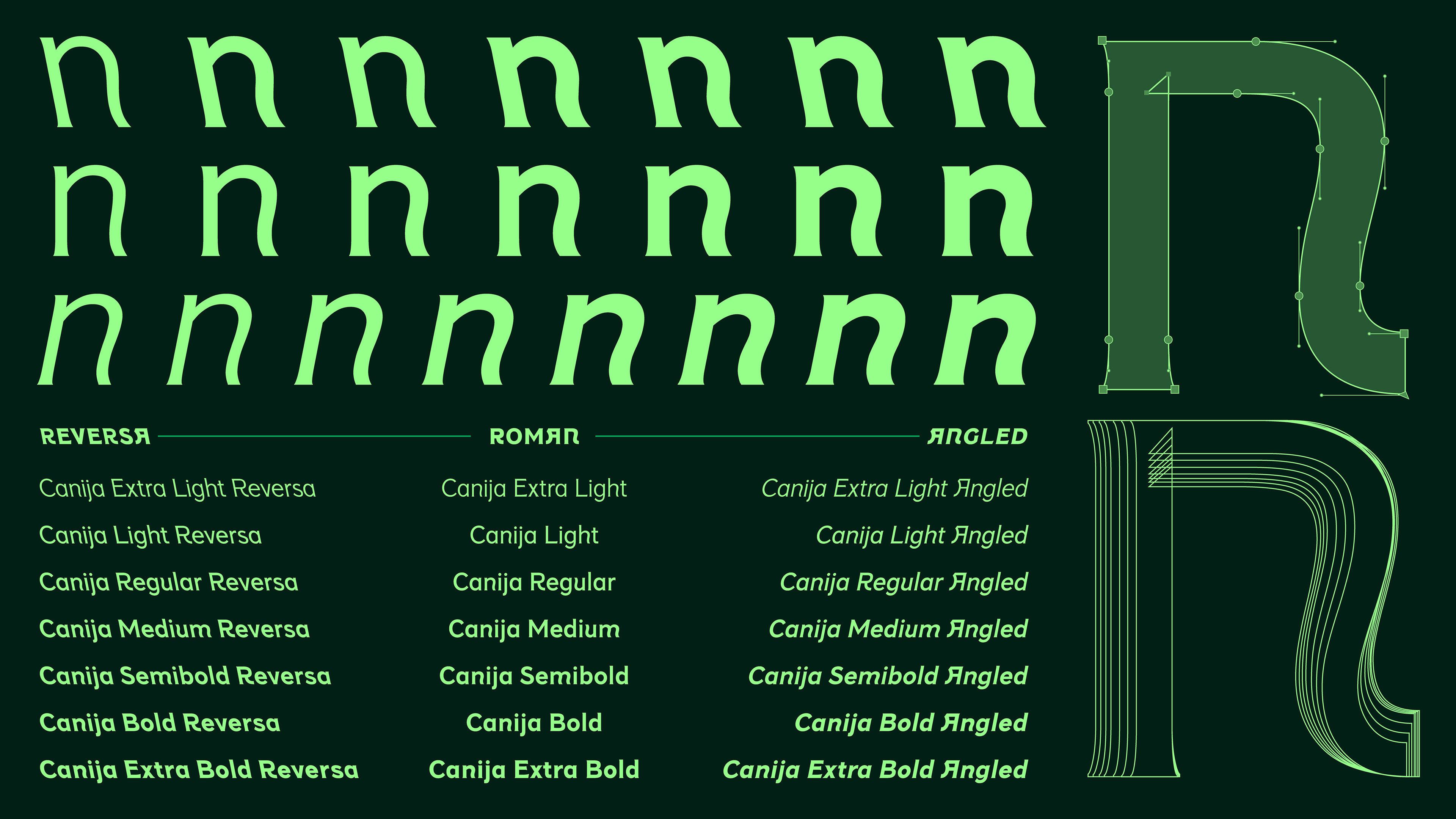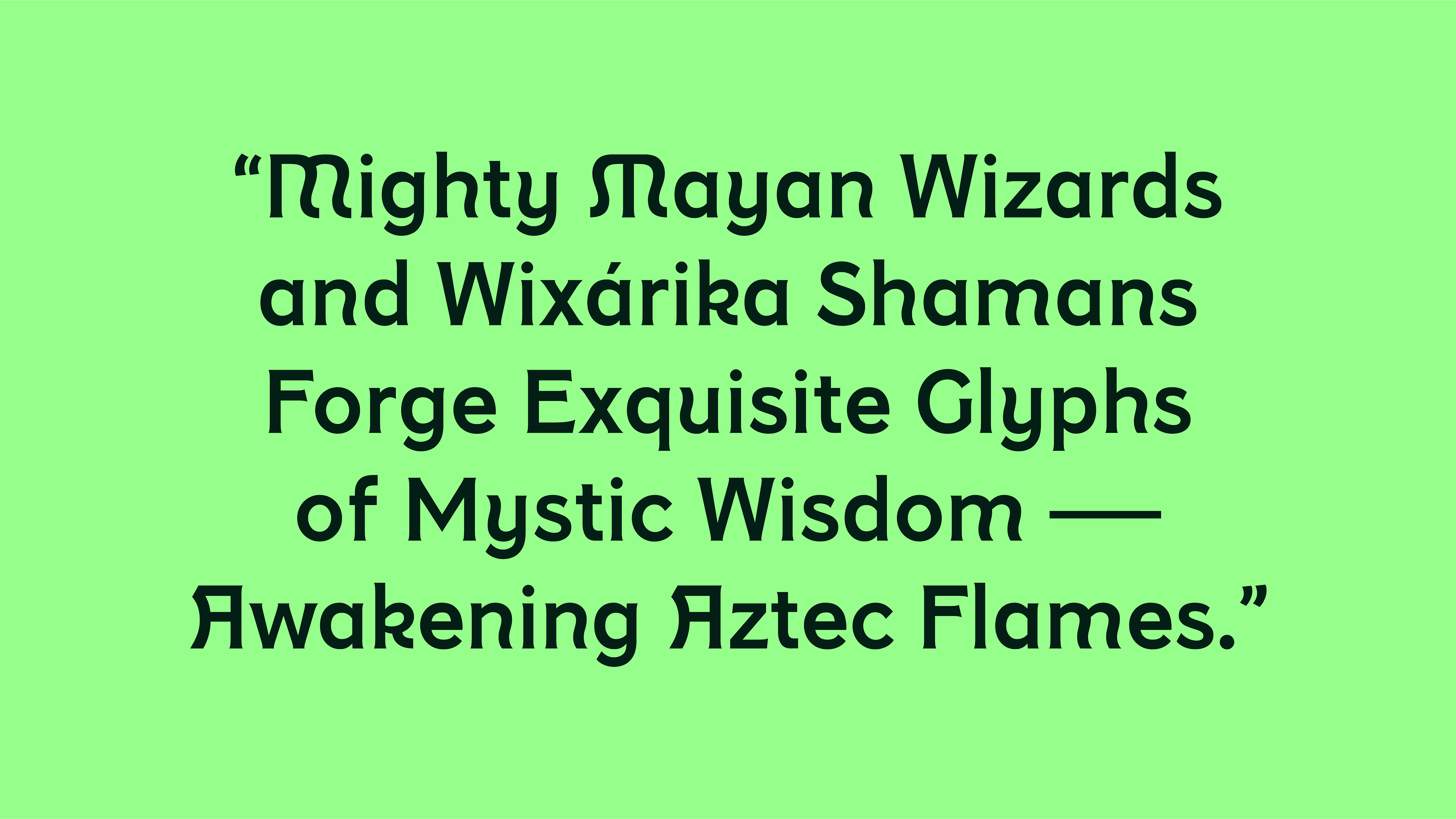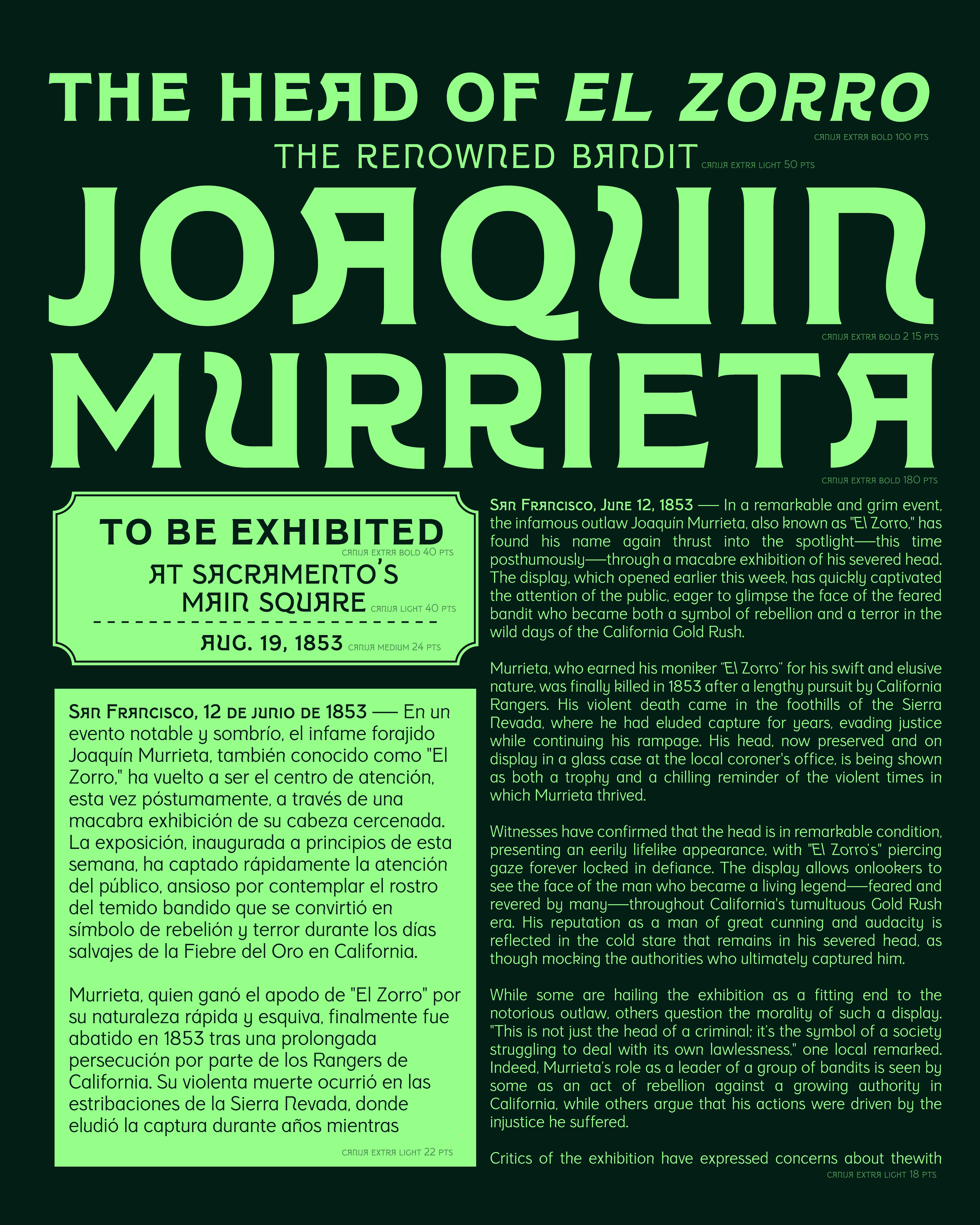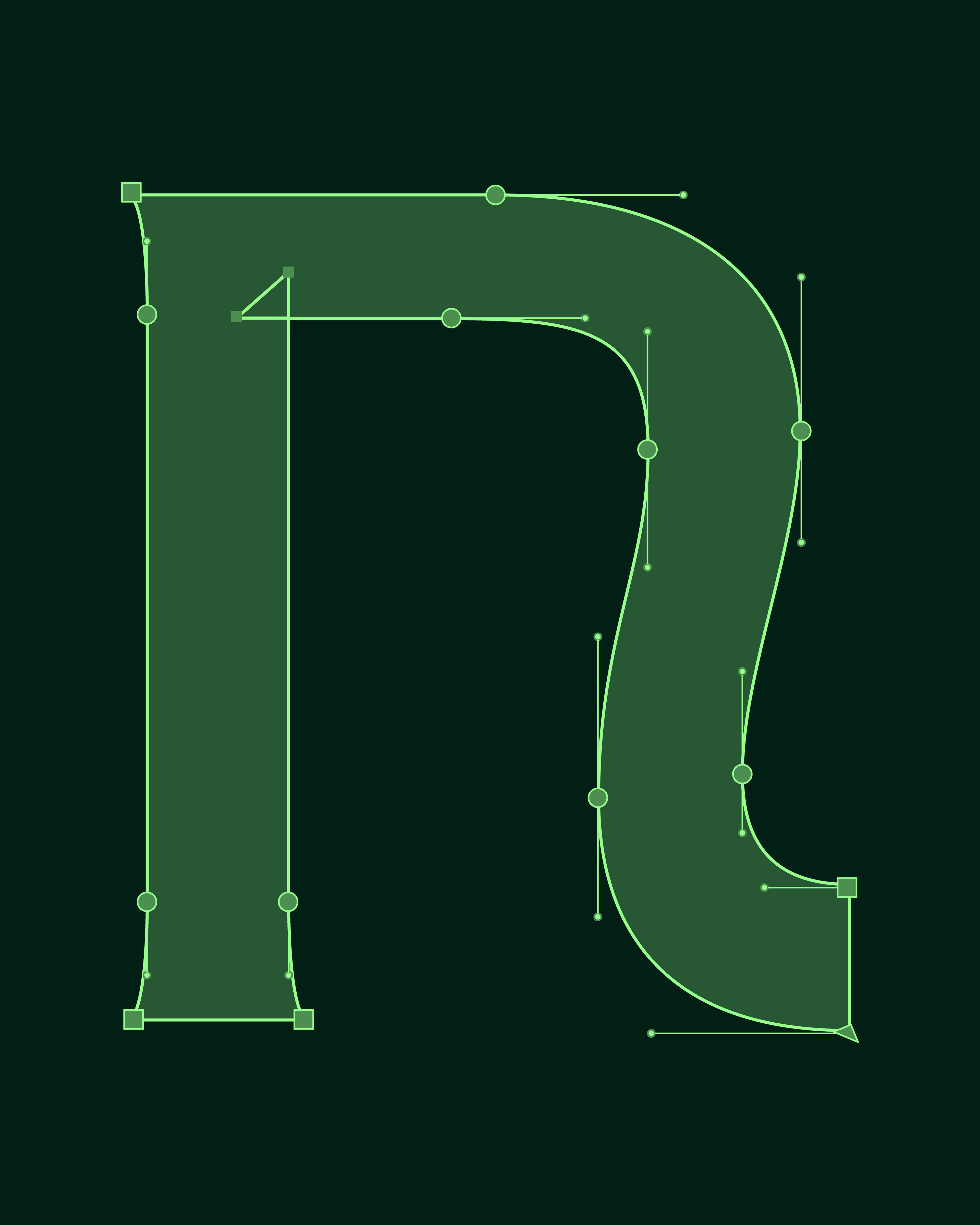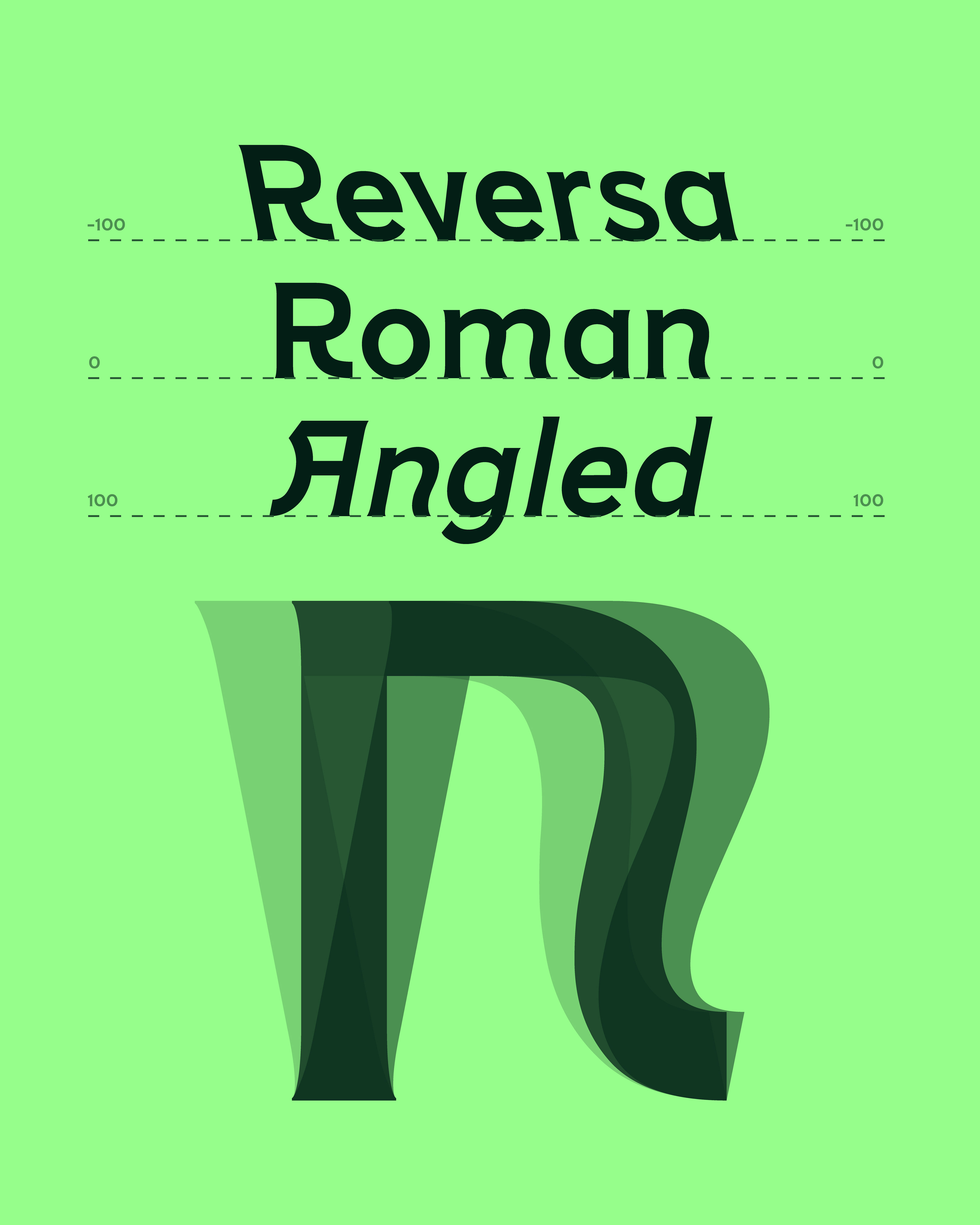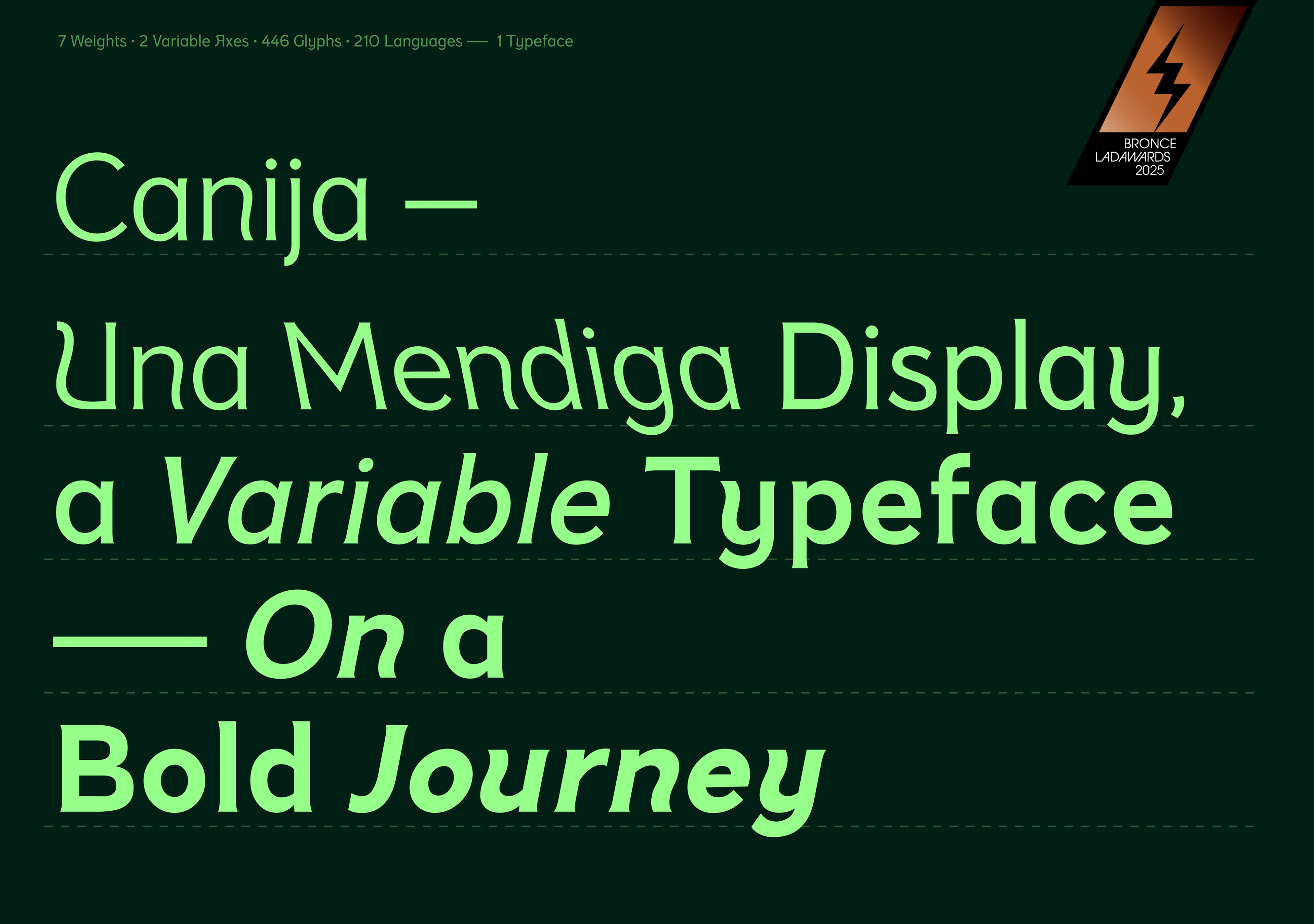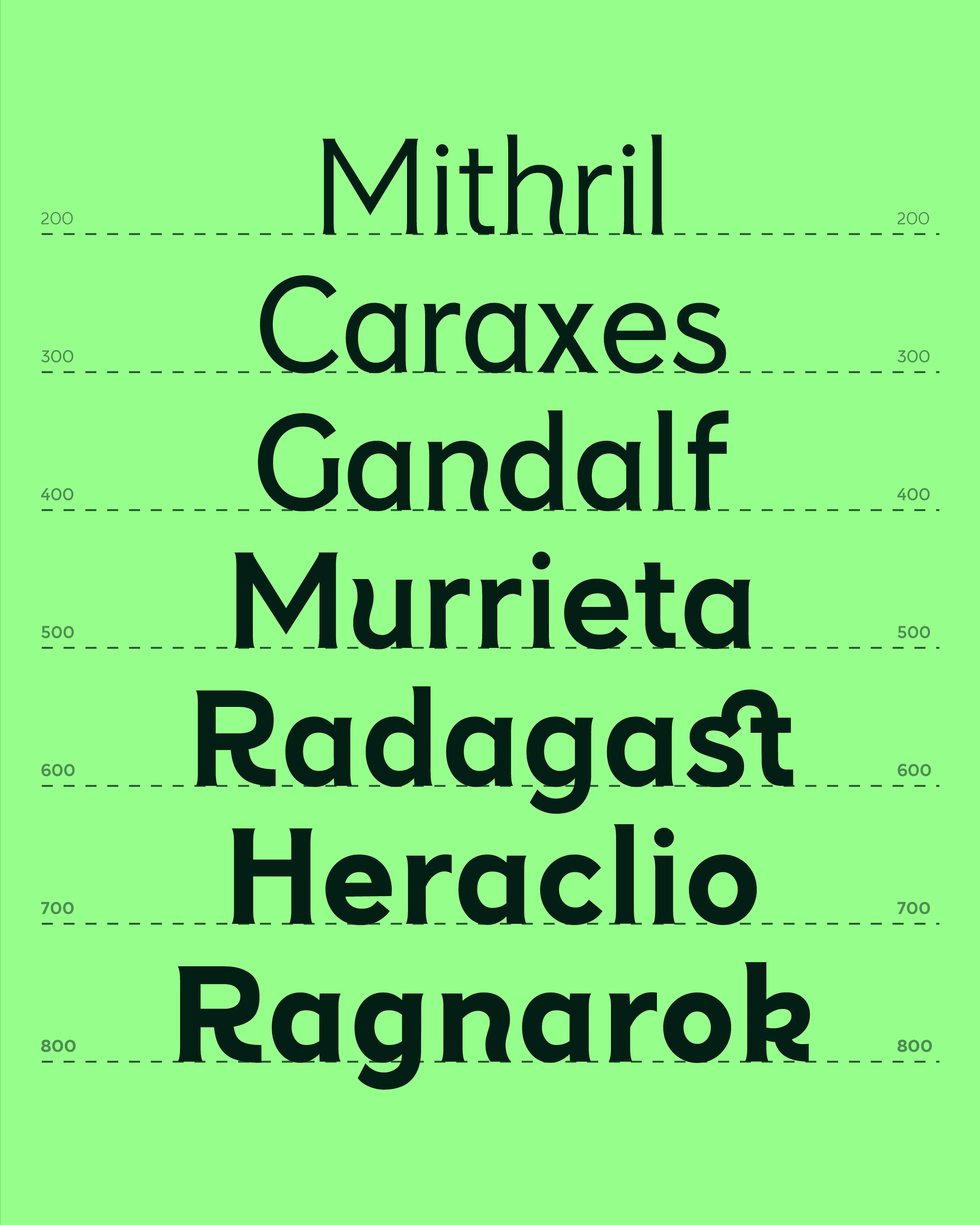
Latin American Design Awards
Bronze Winner 2025
Typeface family
Canija is a variable display typeface family designed to perform in identity projects and editorial productions with a bold presence. Its design merges the elegance of the sacred with a bold contemporary spirit. Its versatility is reflected in its wide range of weights, making it suitable for various applications while always maintaining its striking personality. The family includes twenty-one fonts, two variable axes, seven weights, and a set of OpenType features.